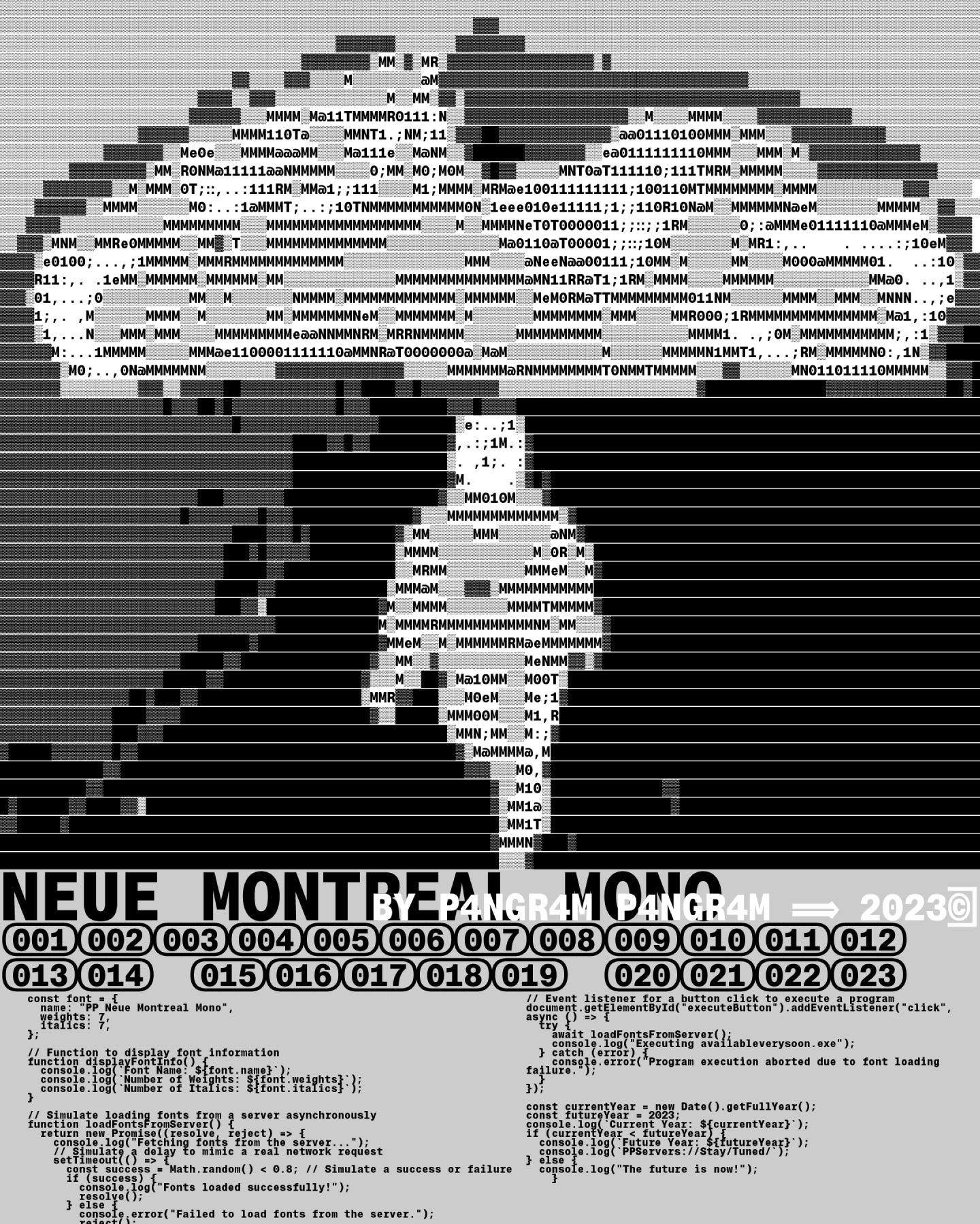
Neue Montreal Font - A versatile grotesque font with the spirit of a. It is designed and shared by pangram pangram. A versatile grotesque font with the spirit of a display font complete with 14 weights (7 uprights, 7 italics) and a slightly tighter kerning including.
A versatile grotesque font with the spirit of a. A versatile grotesque font with the spirit of a display font complete with 14 weights (7 uprights, 7 italics) and a slightly tighter kerning including. It is designed and shared by pangram pangram.
It is designed and shared by pangram pangram. A versatile grotesque font with the spirit of a. A versatile grotesque font with the spirit of a display font complete with 14 weights (7 uprights, 7 italics) and a slightly tighter kerning including.
Neue Montreal Font Family
A versatile grotesque font with the spirit of a display font complete with 14 weights (7 uprights, 7 italics) and a slightly tighter kerning including. A versatile grotesque font with the spirit of a. It is designed and shared by pangram pangram.
A versatile grotesque font with the spirit of a. A versatile grotesque font with the spirit of a display font complete with 14 weights (7 uprights, 7 italics) and a slightly tighter kerning including. It is designed and shared by pangram pangram.
A versatile grotesque font with the spirit of a display font complete with 14 weights (7 uprights, 7 italics) and a slightly tighter kerning including. It is designed and shared by pangram pangram. A versatile grotesque font with the spirit of a.
Neue Montreal Font Family
It is designed and shared by pangram pangram. A versatile grotesque font with the spirit of a display font complete with 14 weights (7 uprights, 7 italics) and a slightly tighter kerning including. A versatile grotesque font with the spirit of a.
A versatile grotesque font with the spirit of a. It is designed and shared by pangram pangram. A versatile grotesque font with the spirit of a display font complete with 14 weights (7 uprights, 7 italics) and a slightly tighter kerning including.
A versatile grotesque font with the spirit of a. A versatile grotesque font with the spirit of a display font complete with 14 weights (7 uprights, 7 italics) and a slightly tighter kerning including. It is designed and shared by pangram pangram.
A versatile grotesque font with the spirit of a display font complete with 14 weights (7 uprights, 7 italics) and a slightly tighter kerning including. It is designed and shared by pangram pangram. A versatile grotesque font with the spirit of a.
A versatile grotesque font with the spirit of a. It is designed and shared by pangram pangram. A versatile grotesque font with the spirit of a display font complete with 14 weights (7 uprights, 7 italics) and a slightly tighter kerning including.
A Versatile Grotesque Font With The Spirit Of A.
It is designed and shared by pangram pangram. A versatile grotesque font with the spirit of a display font complete with 14 weights (7 uprights, 7 italics) and a slightly tighter kerning including.